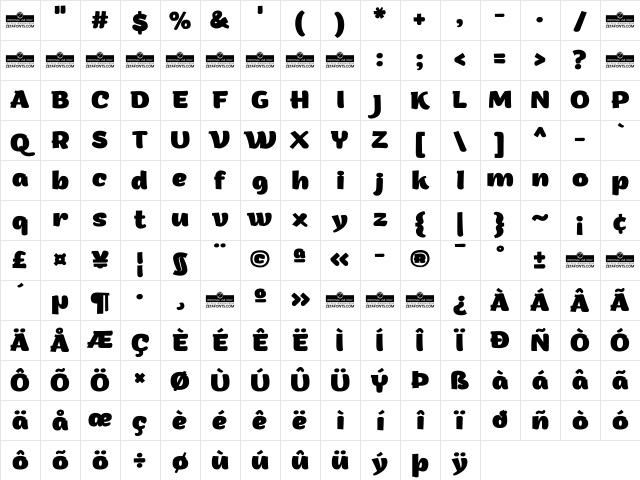
Arturo Trial ExtraBold Free Font
Arturo Trial ExtraBold
Foundry: Zetafonts
Designer: Francesco Canovaro
Design Context for Arturo Trial
Arturo Trial is a composed and adaptable typeface that performs quietly and consistently across a wide range of design contexts. Its bold stroke weight gives it real presence on the page.